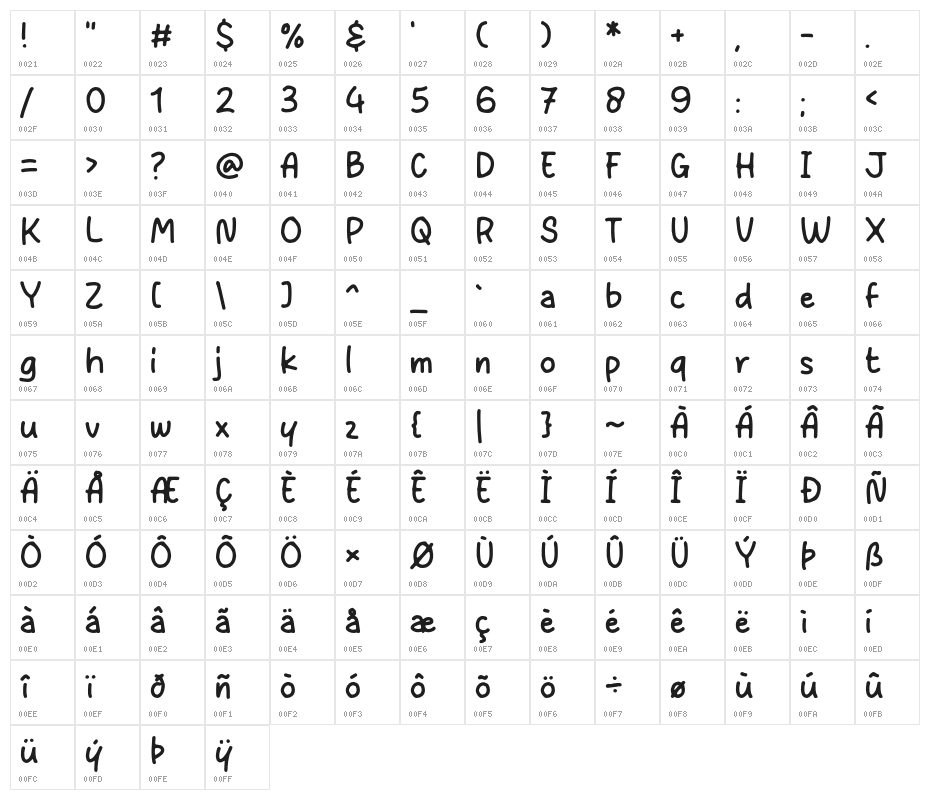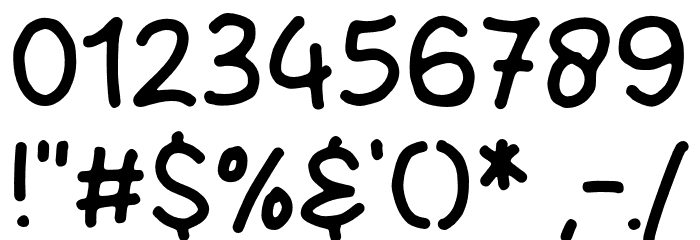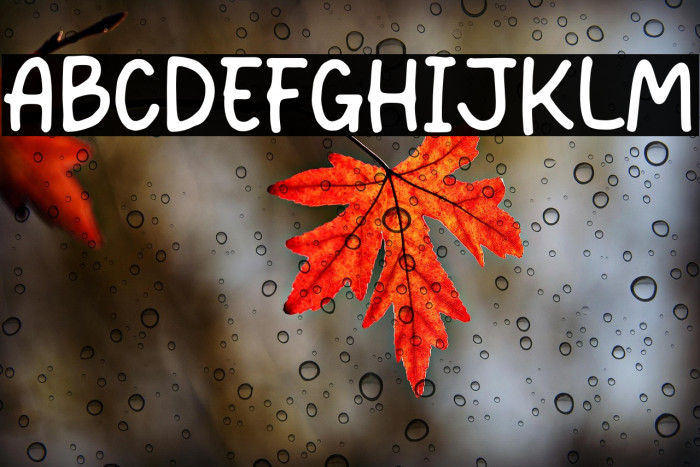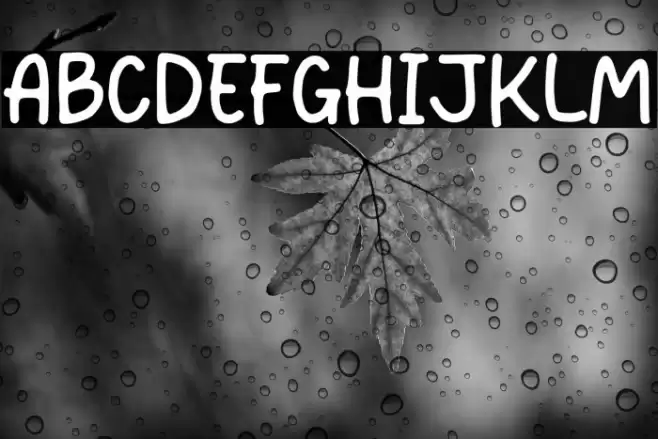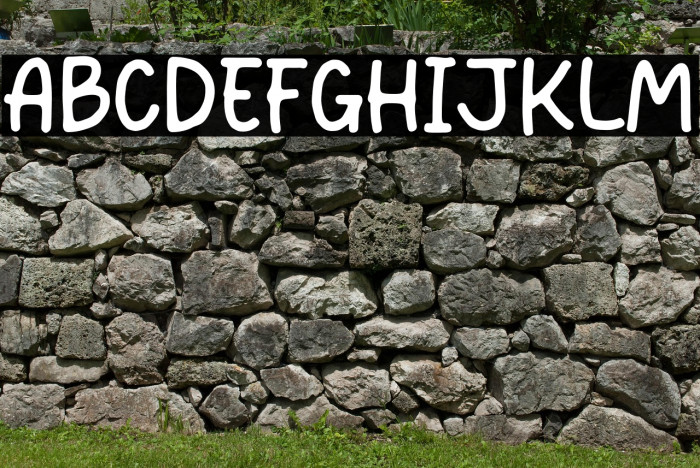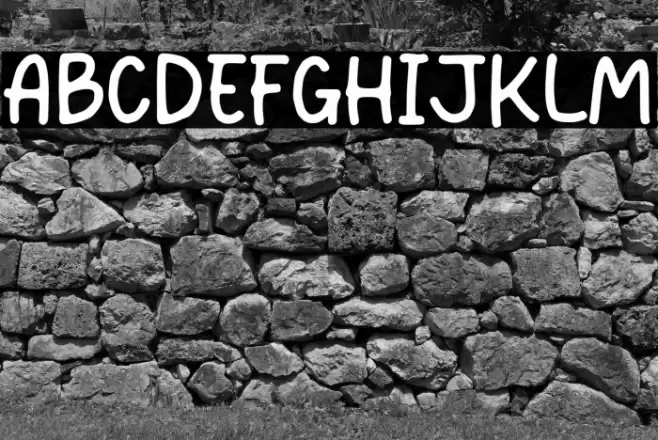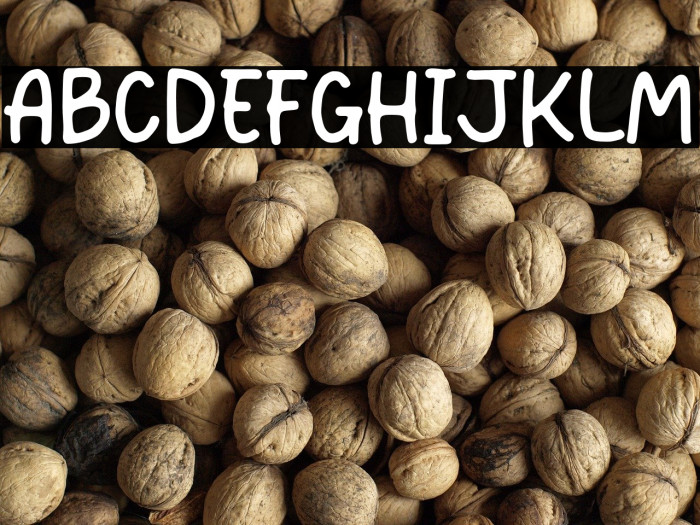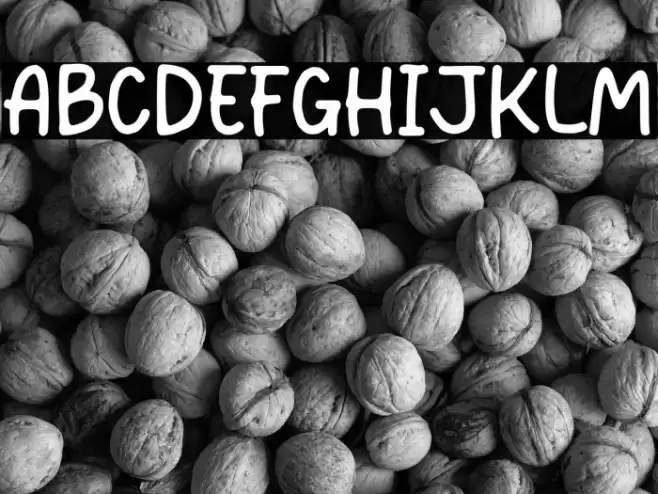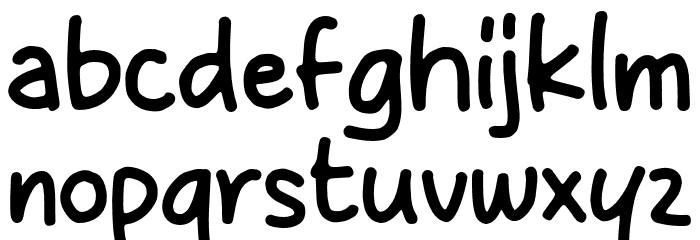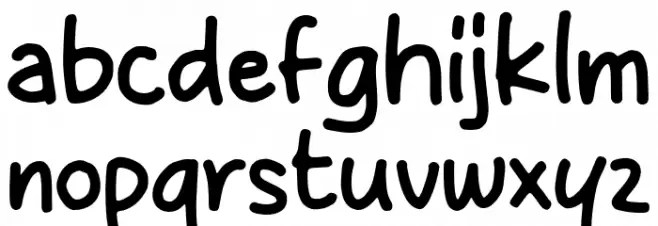
Quick Think Font
Quick Think Description
This font exhibits a playful and informal handwritten style, characterized by its rounded and slightly irregular letterforms. The strokes are consistent in thickness, giving it a uniform appearance despite the casual feel. The uppercase and lowercase letters maintain a friendly and approachable look, with a slight tilt that adds to its dynamic nature. Numbers and special characters are crafted with the same playful essence, ensuring cohesion across all elements. The overall design is reminiscent of casual handwriting, making it suitable for projects that require a personal touch.
| Use Case | Headlines, Informal text, Branding |
| Proposed Projects | Ideal for children's books, greeting cards, casual branding, and social media graphics. |